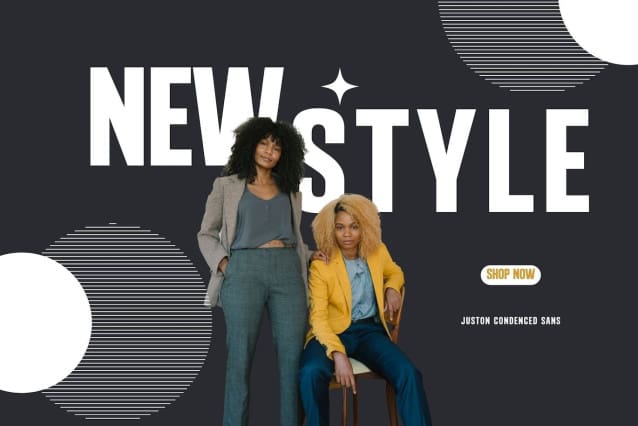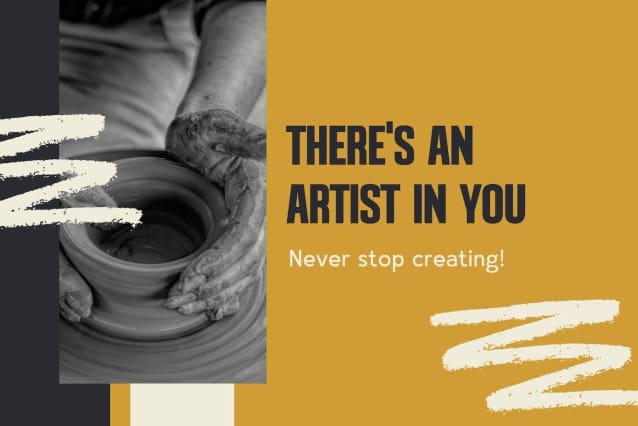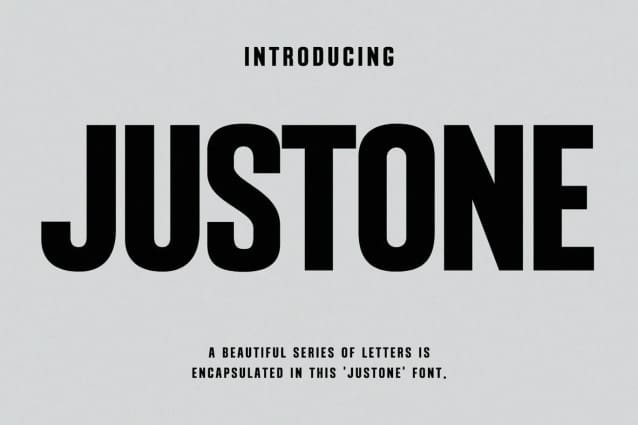
Justone Font
Justone Font, this typeface embodies a symmetrical and balanced rhythm through a unique blend of different sources of inspiration. Proportions are precisely adjusted with subtle contours and subtle contrasts. These shapes give the font an attractive look without compromising elegance and minimalism, ensuring that any glyph is suitable for any graphic design purpose such as brochures, videos, advertising, etc. advertising branding, logos, magazines, layouts, posters, publication templates, games and others